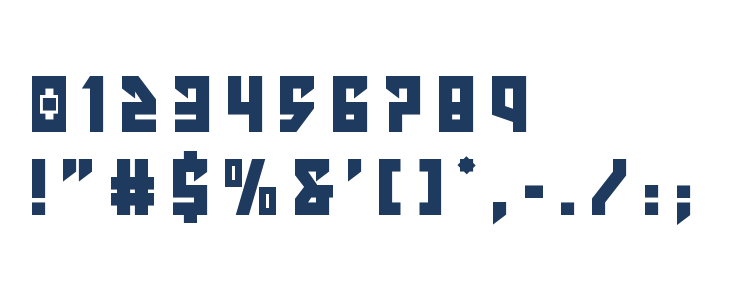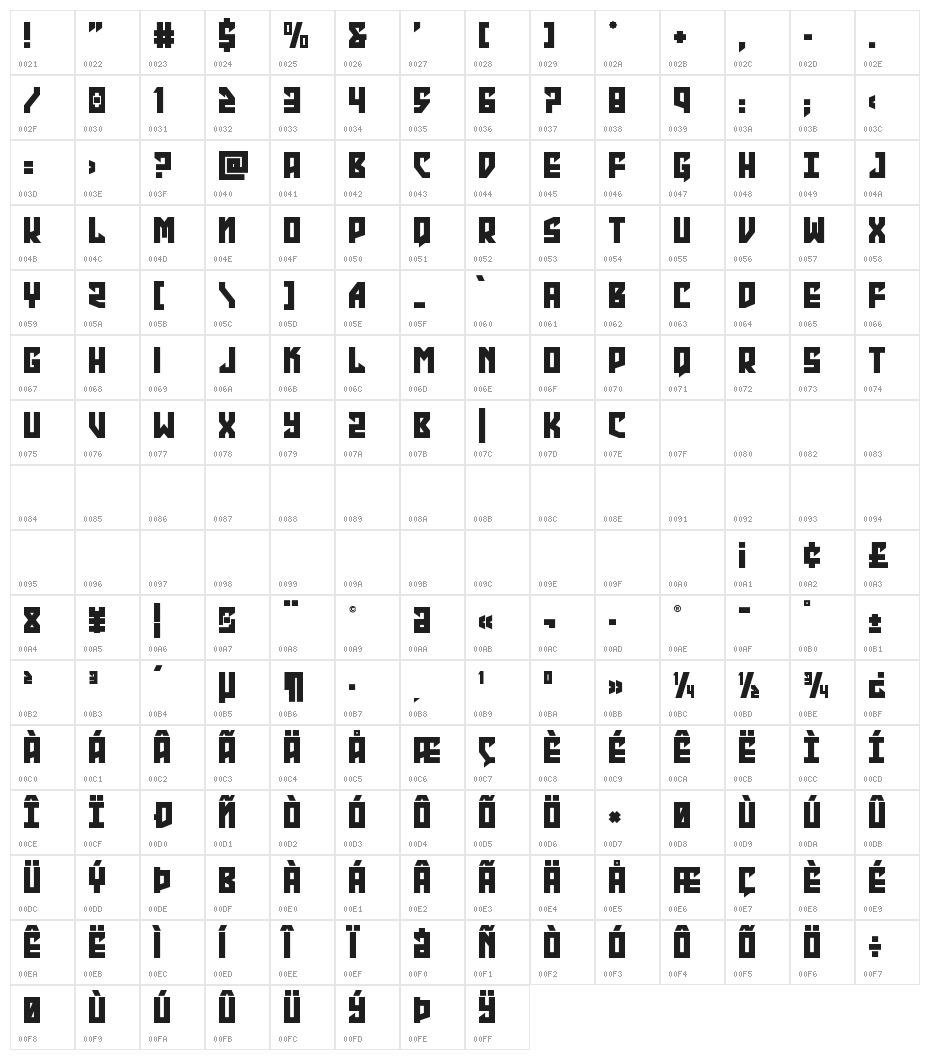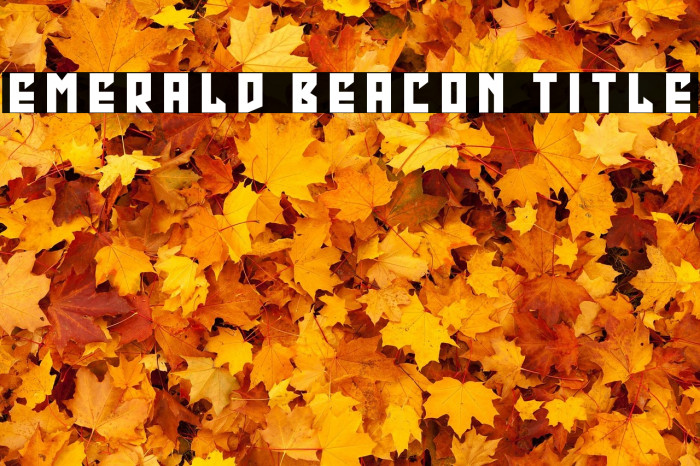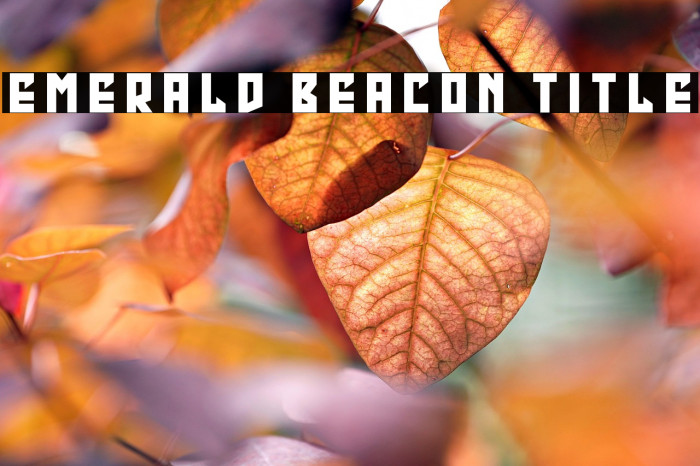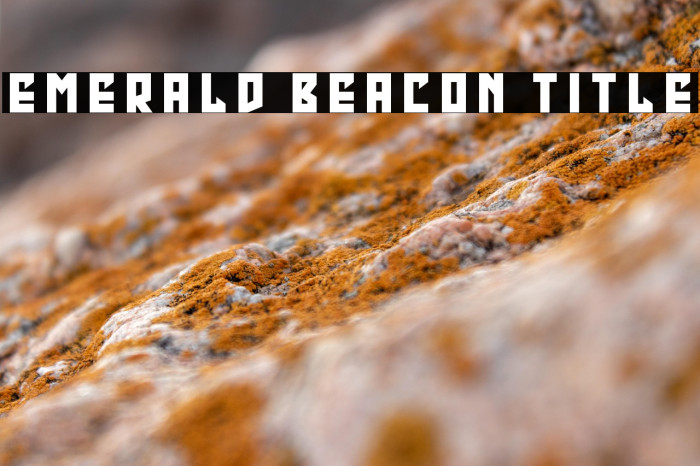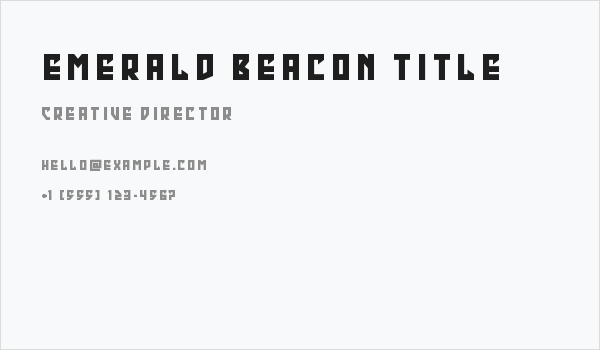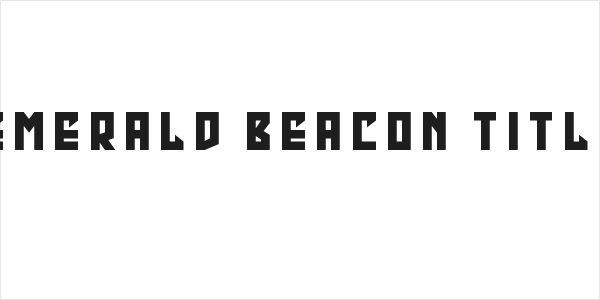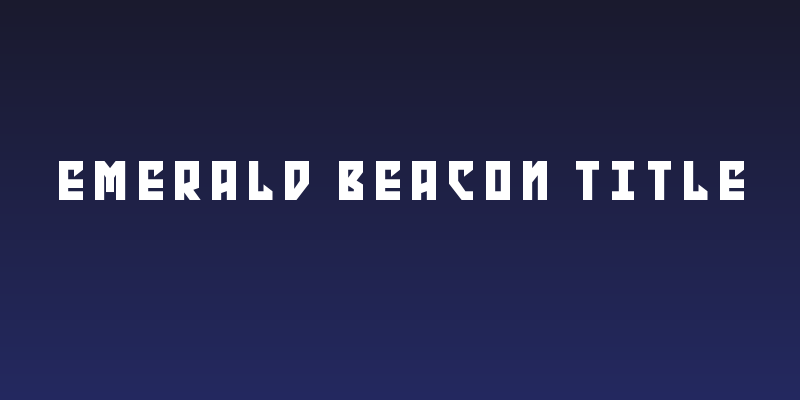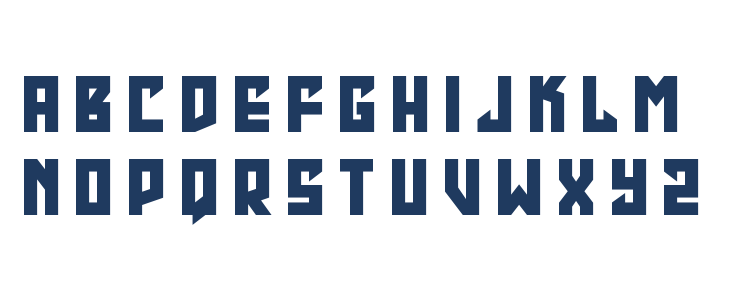
Emerald Beacon Title Font
Emerald Beacon Title Description
This font features a bold and geometric design with sharp angles and a blocky appearance. The characters are uniformly thick, creating a strong visual impact. The angular cuts and straight lines give it a futuristic and industrial feel, suitable for modern and edgy designs. The uppercase and lowercase letters maintain a consistent style, while the numbers and special characters complement the overall aesthetic. The font's unique style makes it ideal for attention-grabbing headlines and titles.
| Proposed Projects | Ideal for use in branding, posters, video game titles, and any project requiring a modern, edgy look. |